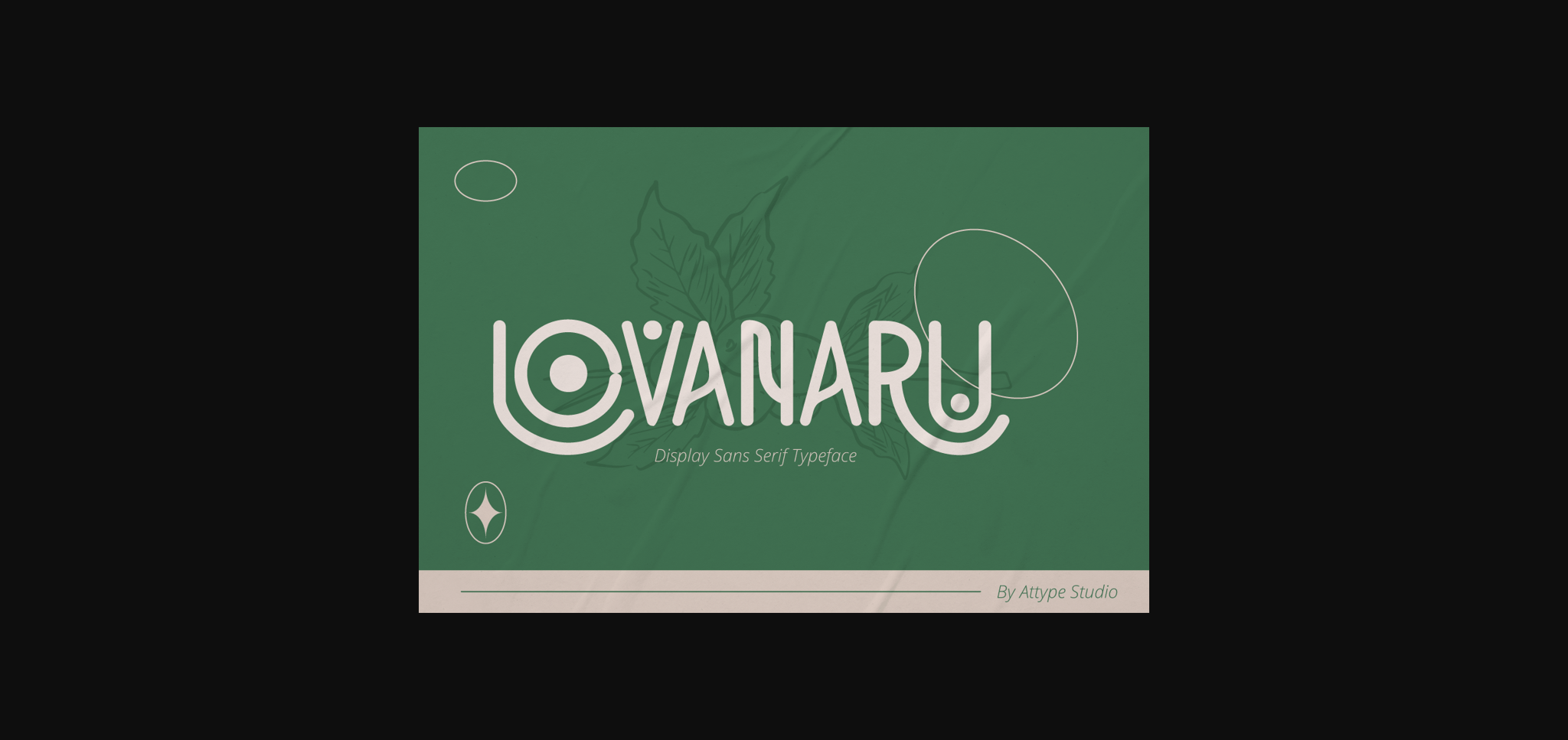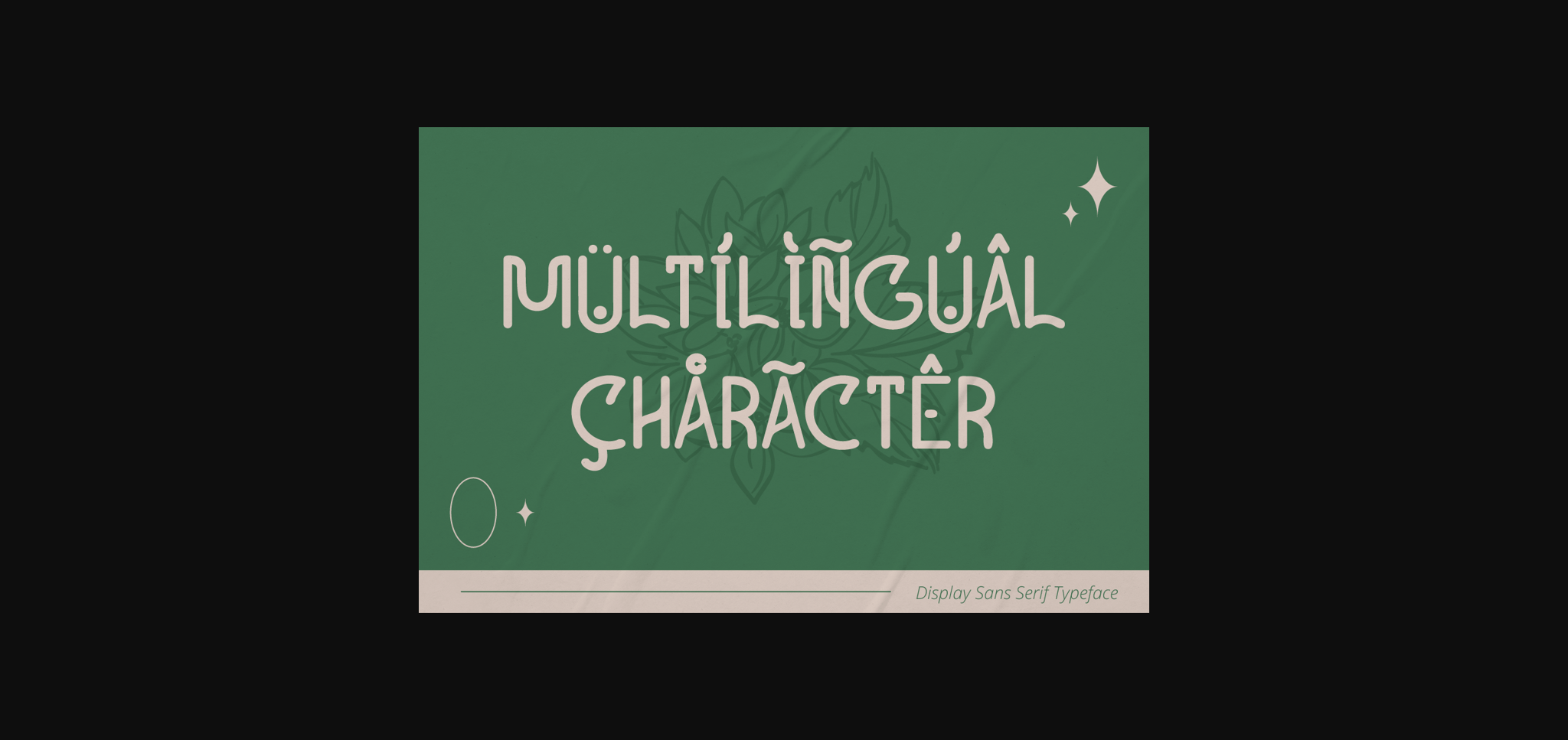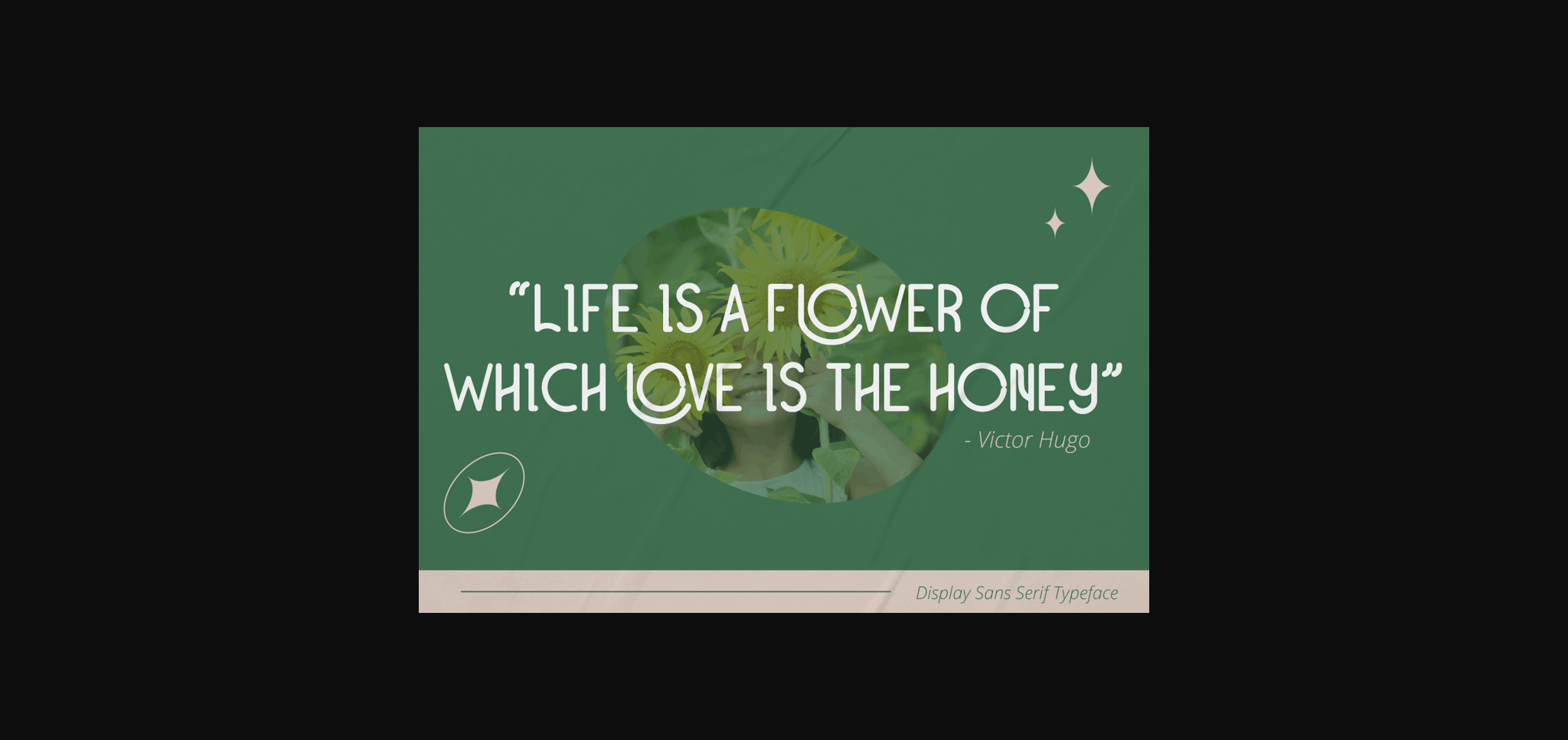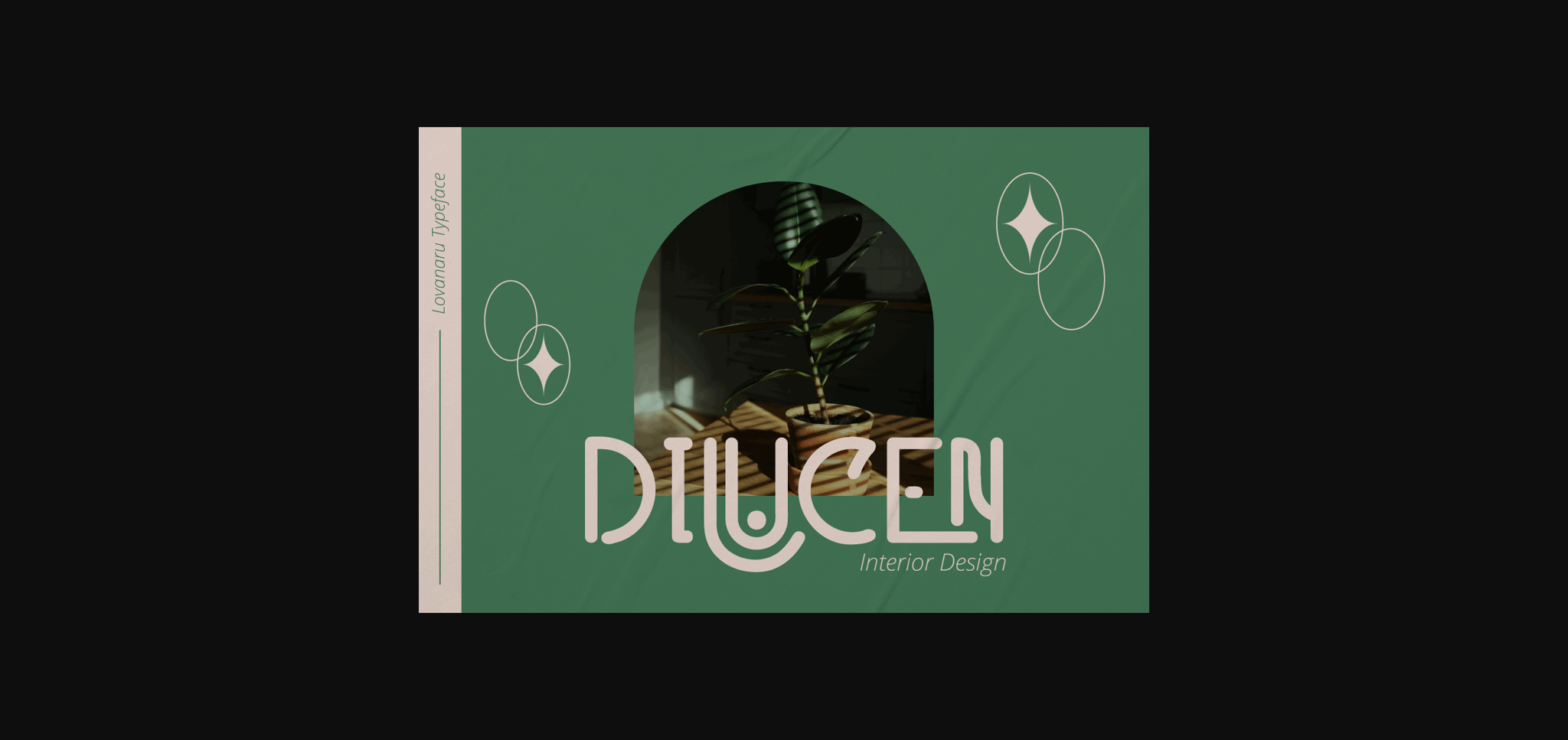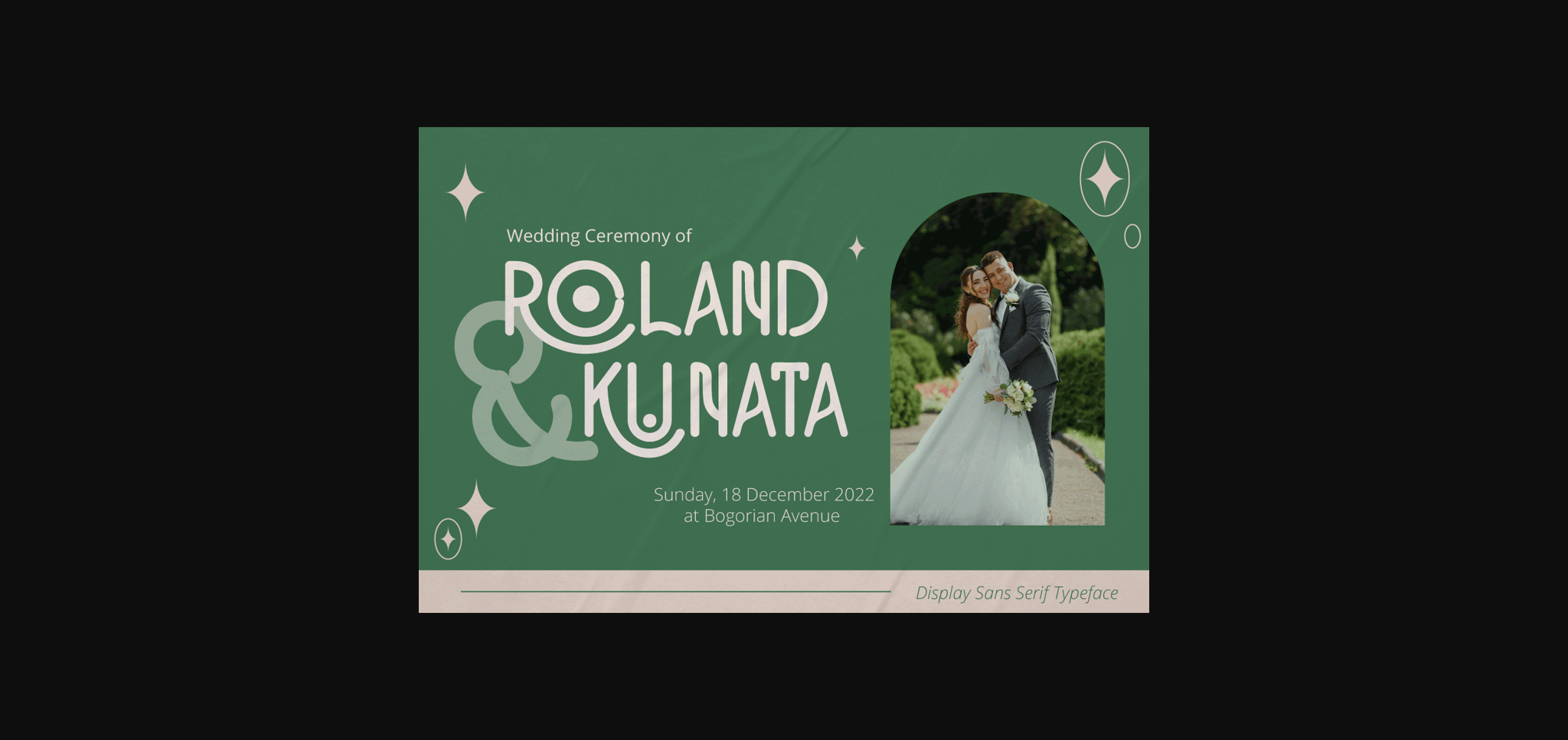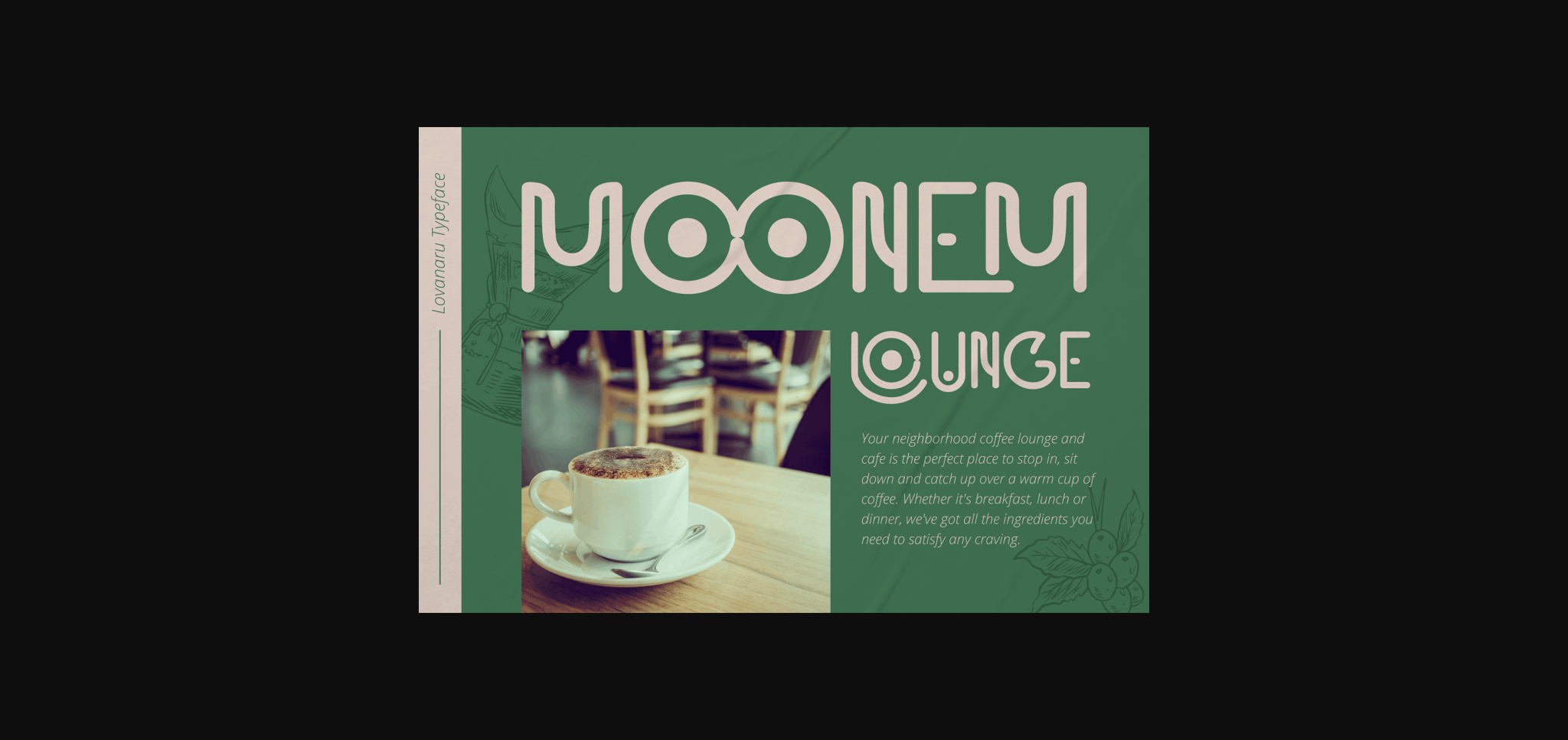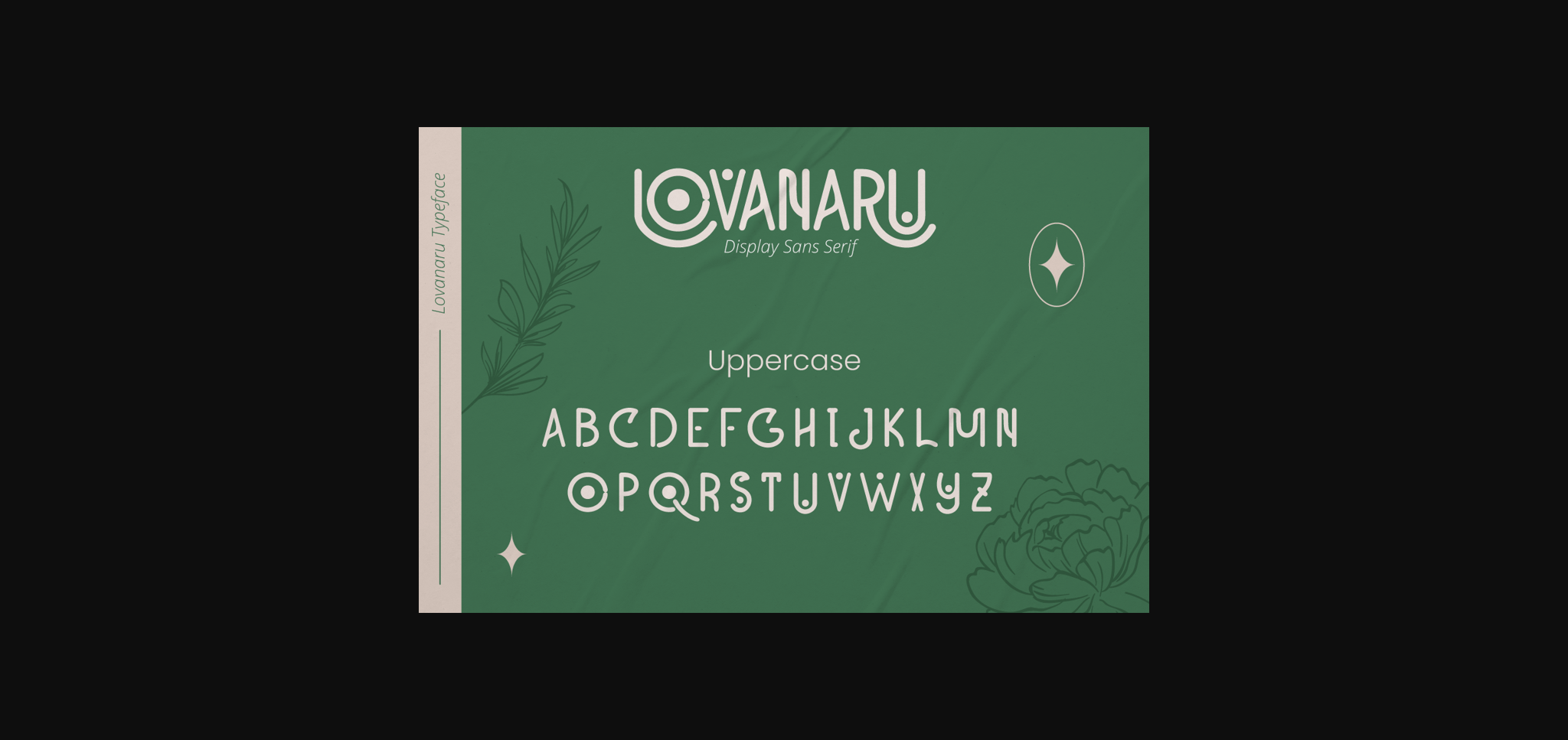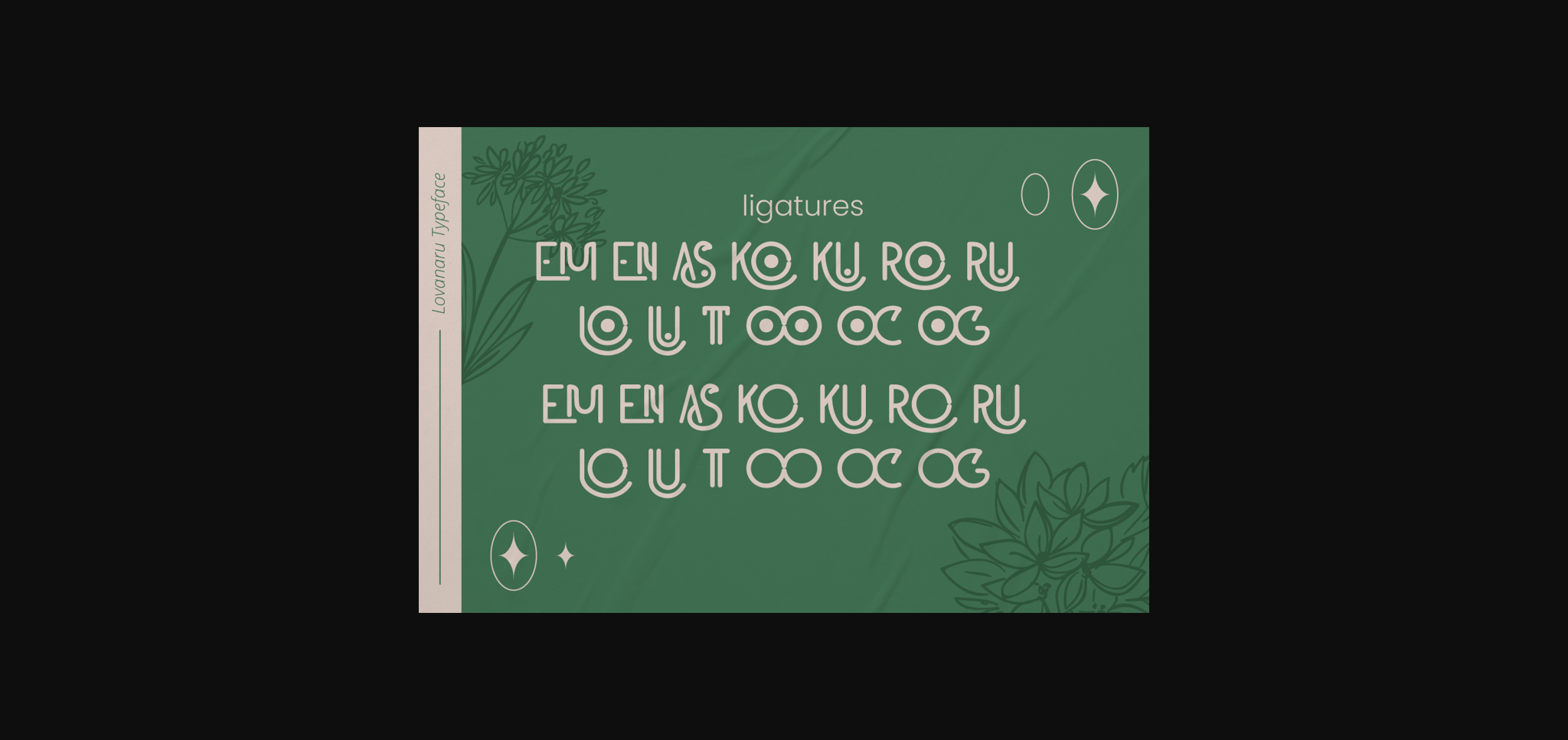
Lovanaru Font
About Lovanaru Font
Lovanaru is a modern, minimalist sans serif font. Its smooth and luxurious curves are perfect for creating chic, feminine designs.